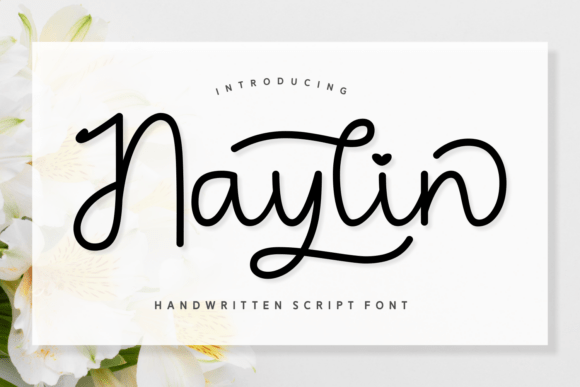
Naylin Font: Cute Handwritten Script for Wedding & Social Media Design
About the Naylin Font
Crafted with precision, the Naylin Font is ready to bring your ideas to life. Naylin is a modern handwritten script font that beautifully balances elegance and playfulness. With smooth monoline strokes, a heart-accented ‘i’, and graceful swashes, Naylin is perfect for wedding materials, romantic branding, girly social media posts, and heartfelt invitations. It radiates warmth, creativity, and charm in every letter.
Naylin’s elegant yet playful nature makes it ideal for branding projects requiring a touch of whimsy, such as boutiques, cafes, or artisanal product lines. It excels in short text applications like logos, headlines, and short quotes on packaging or social media graphics. However, its script nature and monoline weight make it less suitable for body text or UI elements where readability is paramount. Avoid using it for long paragraphs or dense information.
For optimal pairings, consider complementing Naylin with a clean sans-serif like Montserrat for a modern contrast, or a classic serif such as Playfair Display for a more timeless feel. A geometric sans-serif, like Lato, could also provide a sophisticated counterpoint. These pairings will balance Naylin’s expressive script form, ensuring visual harmony and improved readability in multi-font designs.
Naylin’s overall personality is best described as sophisticatedly playful; it conveys a sense of charm and approachability without sacrificing elegance.